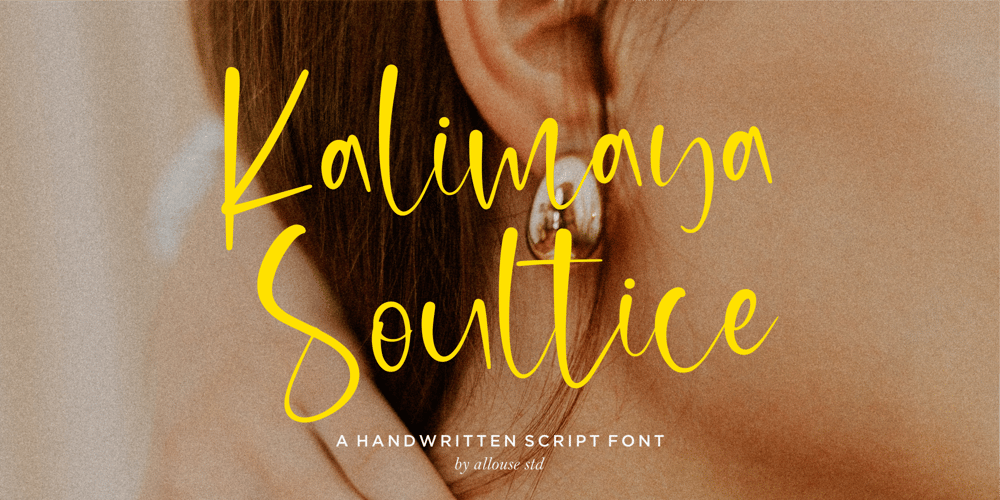
Kalimaya Soultice Font Family was designed by Fachrizal Yusuf and published by Allouse Studio. Kalimaya Soultice contains 1 styles and family package options. Proudly Presenting, Kalimaya Soultice A Handwritten Script Font.Kalimaya Soultice is perfect for any titles, logo, product packaging, branding project, megazine, social media, wedding, or just used to express words above the background.Kalimaya Soultice also come with Multi-Lingual Support.Enjoy the font, feel free to comment or feedback, send me PM or email. Thank You